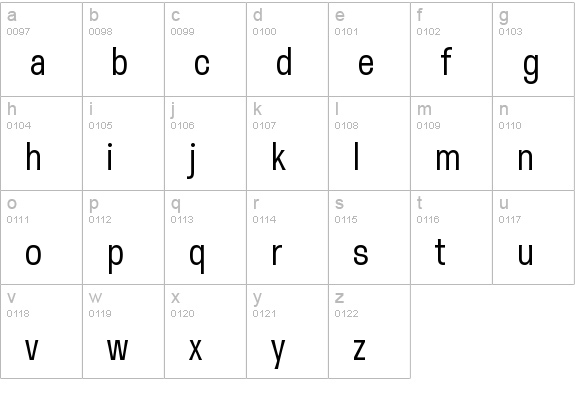
CgWesterveldtLt Font Details
CgWesterveldtLt font is a sleek and modern typeface that exudes elegance and sophistication. With its clean lines and stylish curves, this font is perfect for a wide range of design projects, from branding to editorial design. The versatility of CgWesterveldtLt font makes it a must-have for any designer looking to add a touch of class to their work. What's even better is that CgWesterveldtLt font is completely free to download at FontsMarket.com. That's right, you can enhance your designs with this stunning font without having to spend a dime. So why wait? Head over to FontsMarket.com and download CgWesterveldtLt font today to elevate your design projects to the next level.